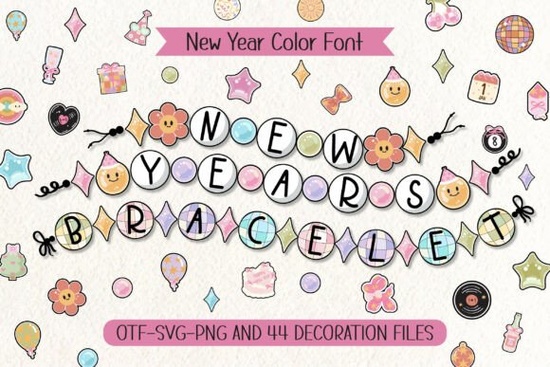
If you're looking for a cheerful, handcrafted way to add New Year spirit to your designs, the New Years Bracelet Font offers something truly special. Unlike standard typefaces, this OpenType-SVG color font wraps each letter in illustrated beads and charms think friendship bracelets meets holiday celebration. Every character pops with playful shapes like cartoon faces, flowers, and diamonds, making it ideal for invitations, social graphics, scrapbook layouts, and more.
Designed with both visual charm and practicality in mind, the font includes five bead-shaped color styles and one coordinating decorative font. You also get 44 matching doodle files that echo the same whimsical aesthetic, giving you plenty of room to mix and match elements without losing design cohesion. Whether you’re creating printable party favors or digital stickers, this set brings consistent, joyful energy to every project.
What makes this font different from regular holiday fonts?
Most holiday-themed fonts rely on snowflakes, fireworks, or script flourishes but the New Years Bracelet Font takes a tactile, craft-inspired approach. Each glyph is built into a colorful bead or charm, so when you type a word, it automatically strings together like a real bracelet. This eliminates the need to manually arrange clipart or worry about spacing inconsistencies.
It’s especially handy if you work with:
- Kids’ New Year party invites
- Bright, eye-catching social media banners
- Custom name tags or gift labels
- Scrapbooking embellishments
- Print-on-demand products like mugs or tote bags
And because it’s an OpenType-SVG font, the colors and details are embedded right in the typeface no extra layers or vector editing required (though you can still customize if you want).
Is this font only for New Year’s Eve?
While it’s themed around the New Year, its bright, bead-like aesthetic works well for any joyful occasion think summer camps, friendship-themed crafts, or even general “celebration” designs. The cheerful trinkets and happy faces give it broad appeal beyond December 31st.